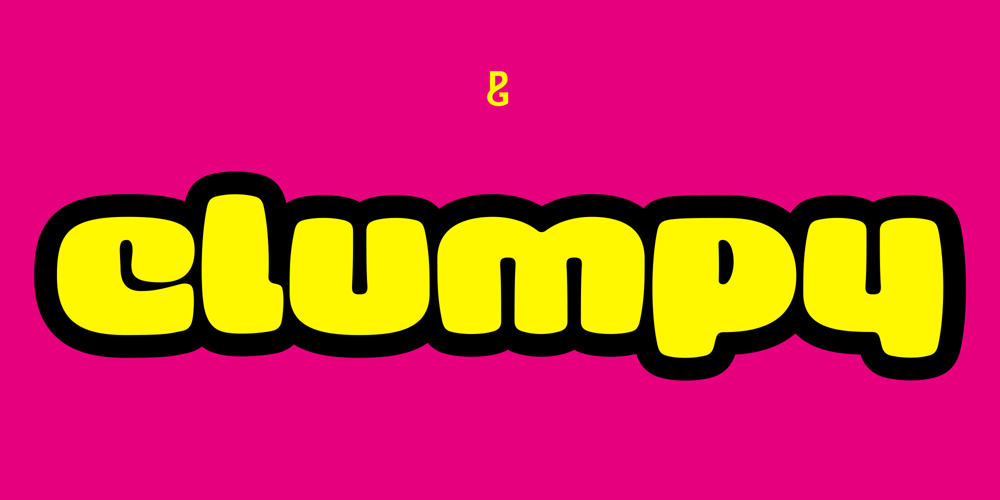
Clumpy
Clumpy font
Clumpy Font Family was designed by Paulo Goode and published by Paulo Goode. Clumpy contains 1 styles and family package options. Clumpy is a goofy display typeface that has a youthful and playful personality. This font has great potential to be used for brands and titles that aim to captivate young children, or for emphasising a comical or light-hearted nature. Integral to Clumpy’s design and charm are its bloated forms that give each character an inflated, balloon-like feel. This cheerful font should be used at large sizes, making it perfect for use in your headlines, signage, logotype, titles, and branding designs. Clumpy has a character set that covers all Latin European languages.